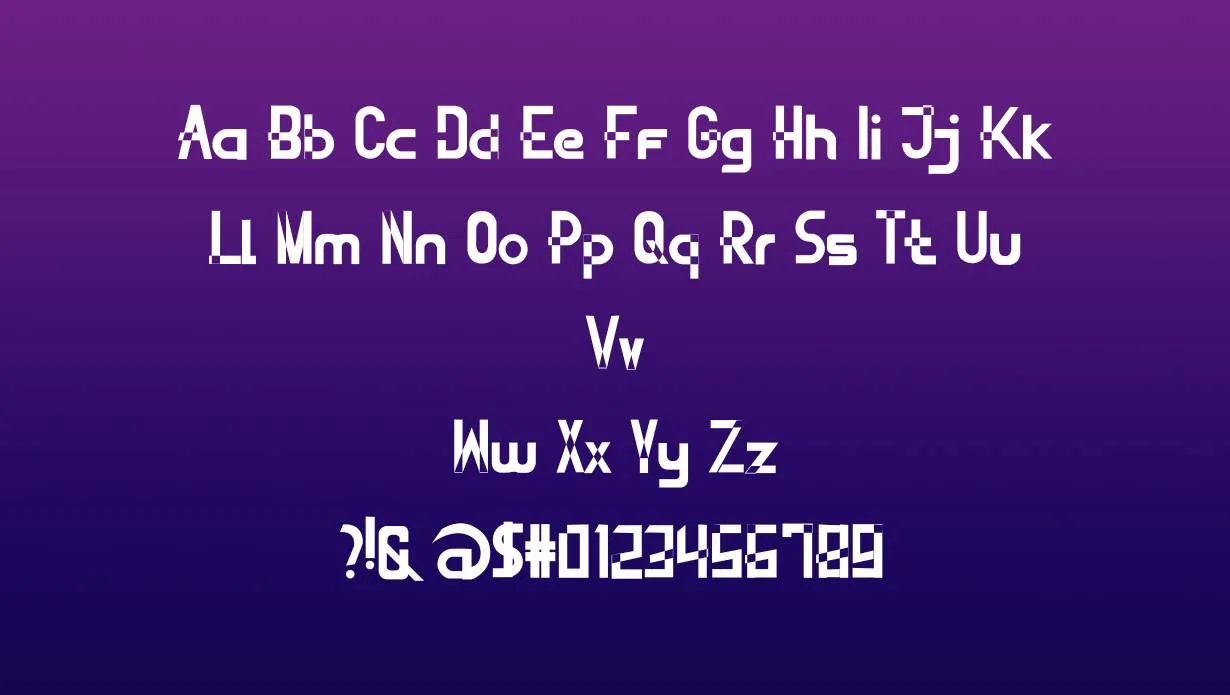
The Super Mega Game Display Font is a dynamic and energetic choice, perfect for projects related to gaming or anything that demands a bold and playful appearance. Its characters bring a sense of excitement and fun.
| Name | Super Mega Game Display Font |
| Designer | Erik Studio |
Super Mega Game Display Font